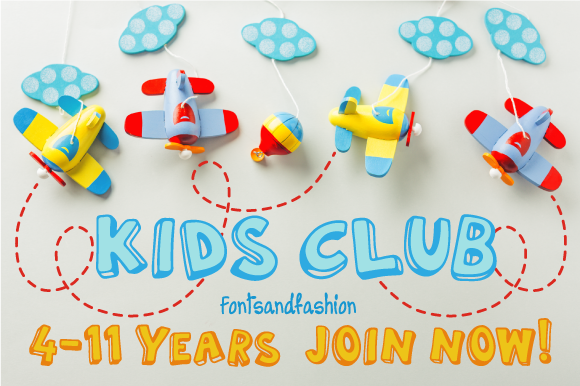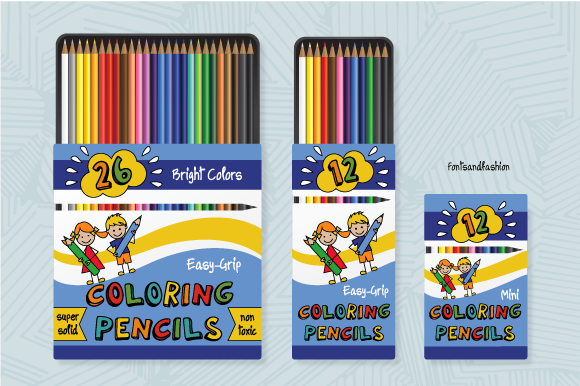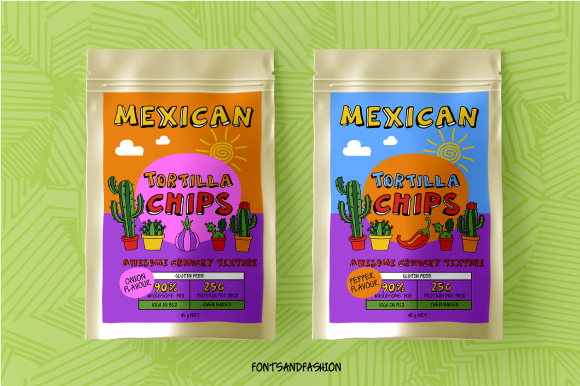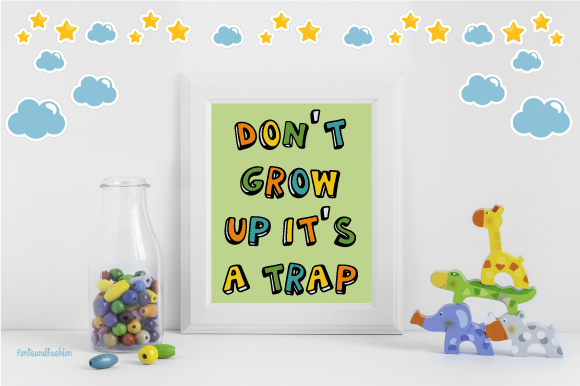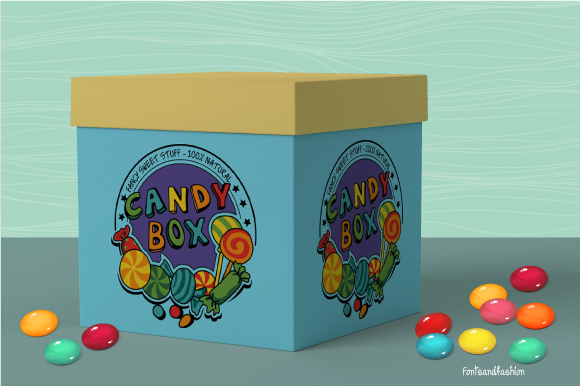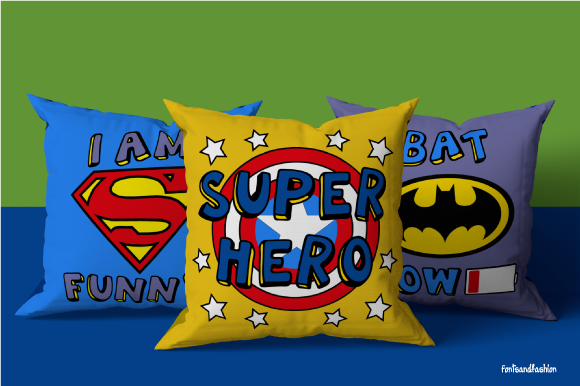
Introduction to Playful Alphabet Font
Playful Alphabet is a cute and fun display font.
It embodies playfulness and authenticity and is the perfect choice for any children activity or school project Add this chunky lettered font to your designs and notice how it makes them come alive.